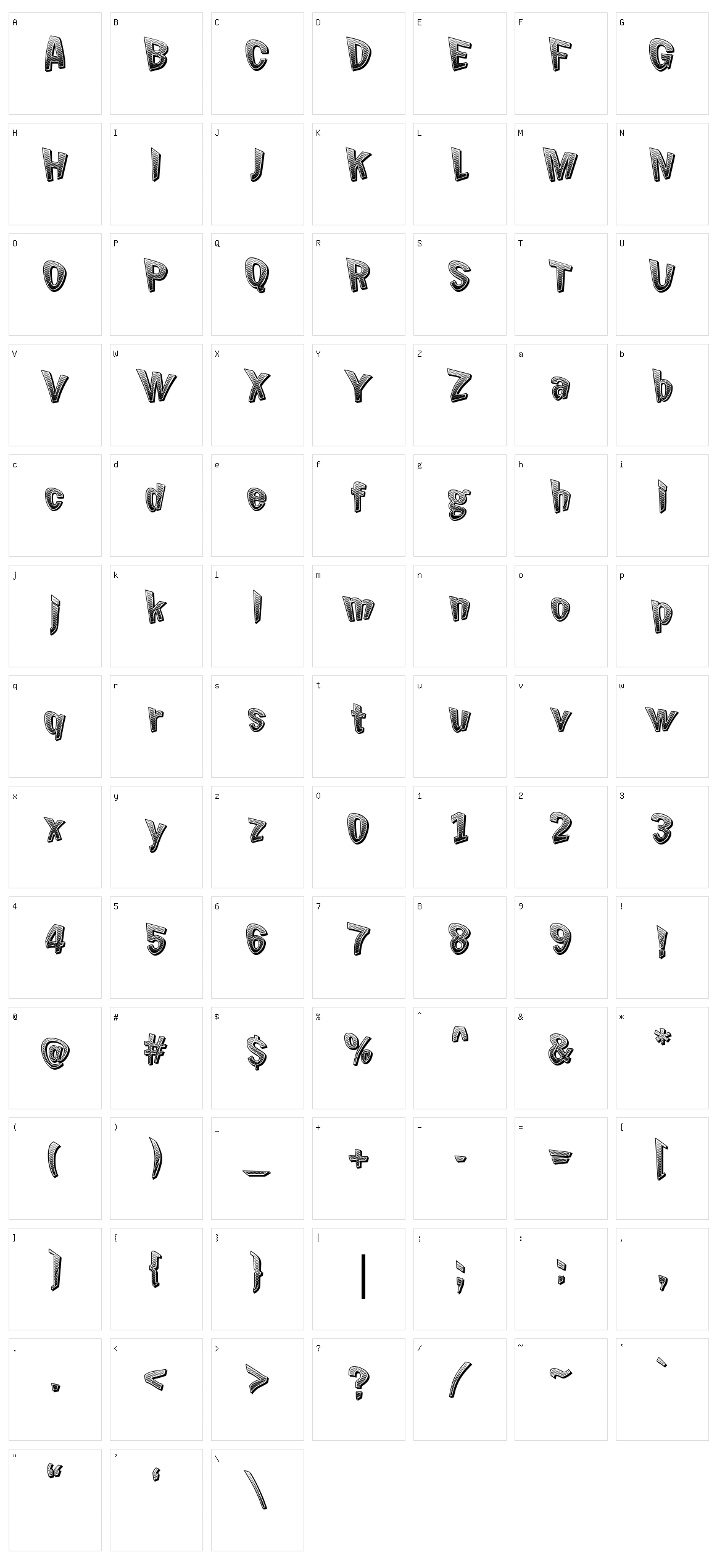
The free font Chicken Butt is carefully designed by Tioem, showcasing a thoughtful balance of creativity and usability and falls under the Cartoon font style. When you download the ZIP file, it contains only 196.2 KB of font files, making it lightweight and quick to download. Please review the license details below to understand permitted usage and distribution rights. If license information is not available, we recommend using this font for personal projects only or contacting the author directly for commercial usage permissions.
Chicken Butt is a TrueType Font By Tom Ledin of Tom Ledin.com